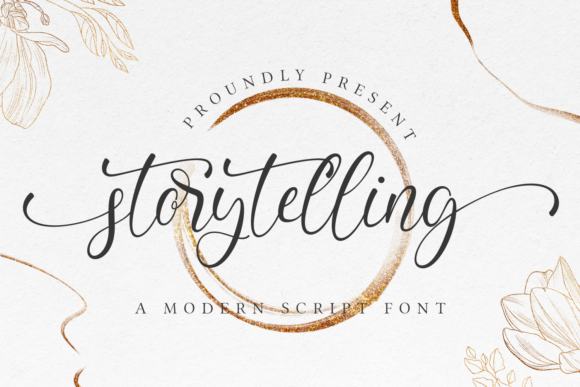
Immerse yourself in the enchanting world of Storytelling Font, a captivating script font that exudes elegance and sophistication, designed by the renowned Guritatype. Storytelling is more than just a font; it's an artistic expression that brings your creative vision to life. With its chic and timeless design, Storytelling seamlessly blends classic charm with a modern twist, making it the ideal choice for a wide range of projects. Unleash your imagination and let the beauty of Storytelling captivate your audience.
Explore the endless possibilities with Storytelling, a font crafted to evoke emotions and create lasting impressions. Its meticulously designed characters dance across the page, capturing attention with their graceful curves and delicate details. From heartfelt personal invitations to stunning social media posts, Storytelling adds a touch of elegance and refinement to every word. Design breathtaking logos that exude professionalism and leave an indelible mark on your customers' minds.
Step into the realm of visual storytelling and let Storytelling Font be your guide. Craft captivating branding elements, eye-catching stationery, and enchanting wedding designs that leave your audience spellbound. With Storytelling by your side, you have the power to transform ordinary words into compelling narratives that resonate with hearts and minds.